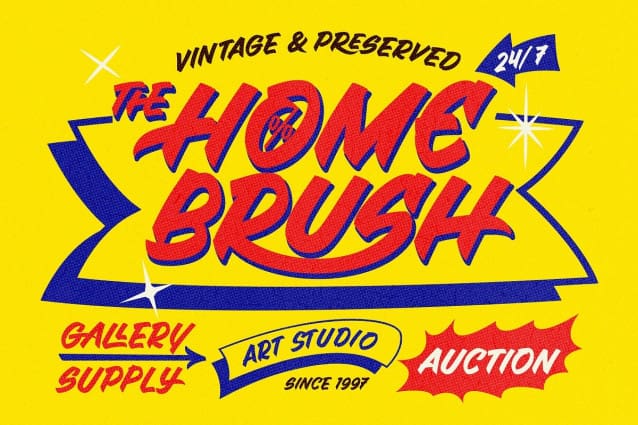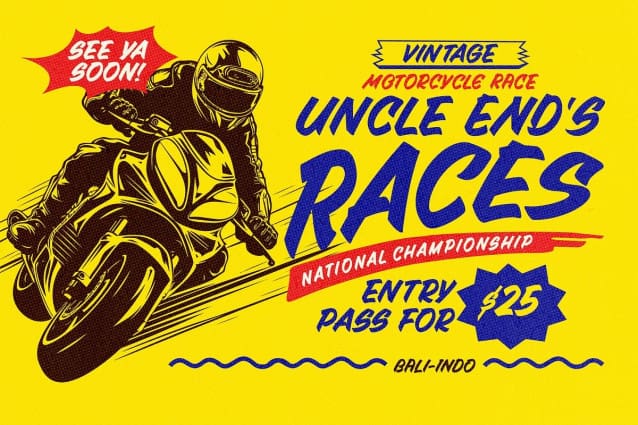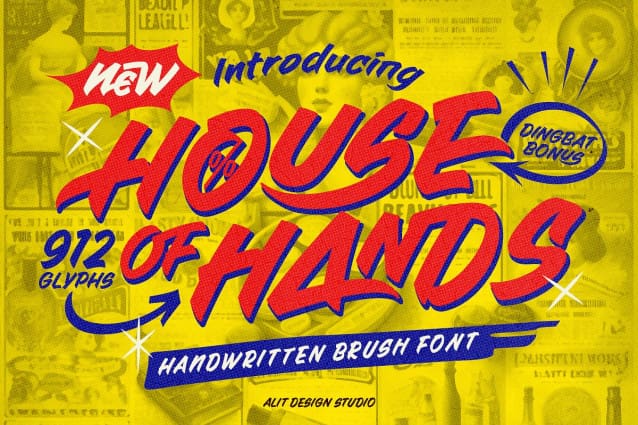
House Of Hands Font
House Of Hands Font: Captures the spontaneous handmade style with a smooth, fluid brush effect that suggests quick yet controlled strokes. This handwritten font exudes a cool, modern feel with each character designed to bring vibrant energy to any design. Perfect for art posters, signage or branding materials, it combines a casual look with sophistication, giving designs a fresh, artistic feel.